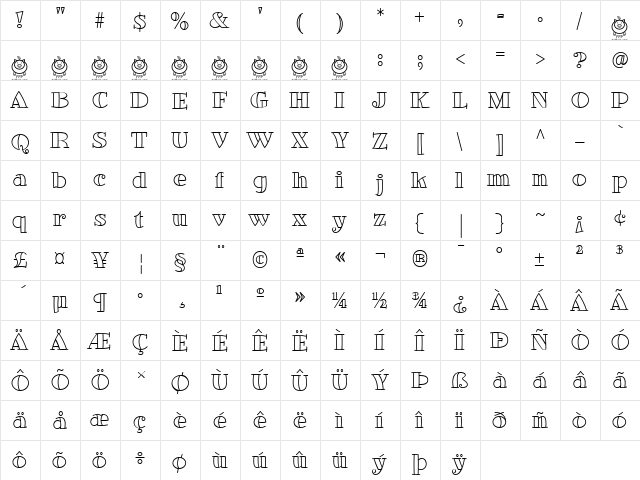
Glotona White FFP
| Foundry | deFharo |
| Designer | Fernando Haro |
Design Context for Glotona White Typeface
Glotona White is a composed and adaptable typeface that performs quietly and consistently across a wide range of design contexts.